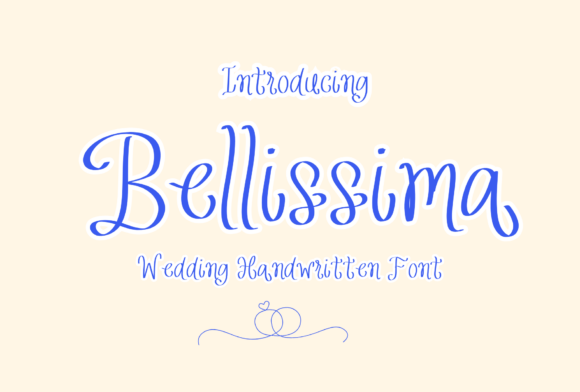
The Perfect Script for a Dream Wedding
As you sit with your partner, surrounded by love, laughter, and endless possibilities, the excitement of planning your special day begins to unfold. The first step is to set the tone with beautiful wedding stationery – and that’s where the magic of typography comes in. Imagine a font that embodies the essence of elegance and romance, transporting your guests to a world of whimsy and wonder. This is where the Bellissima Font steps in, a handwritten masterpiece designed specifically for the most unforgettable day of your life.
Whether you’re a seasoned designer or a DIY enthusiast, the Bellissima Font is a treasure trove of inspiration, offering a unique blend of sophistication and whimsy that’s sure to elevate your wedding stationery game. With its delicate strokes and flowing curves, this beautiful script is the perfect choice for invitations, save-the-dates, and all your wedding needs.
Bellissima Font Key Features
- Font Family: Bellissima, Bellissima Italic, Bellissima Bold, Bellissima Bold Italic
- Unique Characteristic: Elegant, cursive script with a touch of sophistication and refinement
Bellissima Font Review
Overall, I think the Bellissima Font is a beautiful and elegant font, perfect for those looking for a high-end, luxurious feel for their design projects. ✨ It’s got a classic and sophisticated vibe that’s sure to make a statement.
- ✨ Elegant and refined design, perfect for high-end branding and luxury products
- ✨ Great for use in headers and titles, where a statement font is needed
- ⚠️ May be too ornate or flashy for some designs, where a simpler font is preferred
- ⚠️ Limited character set, which may cause issues for languages that require more complex typography
- ⚠️ Not ideal for body text, where readability is a priority
In conclusion, the Bellissima Font is a stunning font that’s perfect for those who want to add a touch of luxury to their designs. However, it may not be suitable for all projects, and its limitations should be carefully considered before making a purchase.
Bellissima Font: A Practical Application Guide
For a more elegant look, pair the Bellissima Font with a soft background color and subtle texture.
For a more dramatic look, experiment with bold font sizes and contrasting colors.
For a more professional look, pair the Bellissima Font with a clean and simple design.
The Bellissima Font is ideal for:
- Fashion and beauty branding
- Fine dining and luxury packaging
Remember to experiment
Alternatives to Bellissima Font for Designers
Playfair Display is an elegant and luxurious serif font that is perfect for creating a sophisticated and high-end look. It is ideal for use in titles, headings, and other display text where a touch of luxury is desired.
Comparison to Bellissima Font: While both fonts are elegant and sophisticated, Playfair Display has a more classic and traditional feel, whereas Bellissima Font is more modern and sleek. Playfair Display is also more ornate and has a more dramatic flair.
Great Vibes is a beautiful and elegant script font that is perfect for creating a romantic and whimsical look. It is ideal for use in titles, headings, and other display text where a touch of elegance and sophistication is desired.
Comparison to Bellissima Font: While both fonts are elegant and sophisticated, Great Vibes has a more fluid and organic feel, whereas Bellissima Font is more structured and modern. Great Vibes is also more suitable for use in text-based applications where a script font is desired.